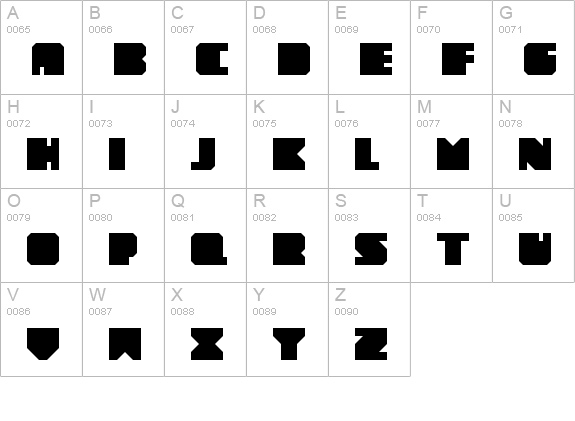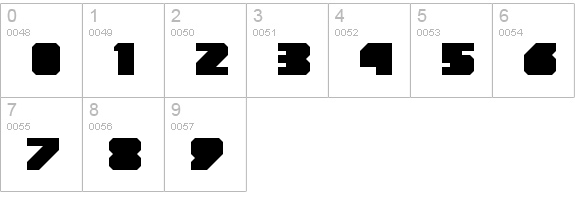
Novum Bold Font Details
Novum Bold is a strong, high-contrast variant in the Novum typeface family \xE2\x80\x94 well suited to headlines, attention-grabbing titles, and strong calls-to-action.
Novum Bold is a striking and versatile font that exudes a sense of modernity and sophistication. Its strong and bold letterforms make it perfect for headlines, titles, and branding projects that require a bold statement. The clean lines and sharp edges of Novum Bold give it a contemporary look that is both elegant and impactful. What sets Novum Bold apart is not only its stylish design but also the fact that it is available for free download at FontsMarket.com. This means that you can easily access this high-quality font for your design projects without any cost. Whether you are working on a poster, logo, or any other creative project, Novum Bold is a fantastic choice that will help you make a bold statement. Download Novum Bold today and elevate your design work with this exceptional font.